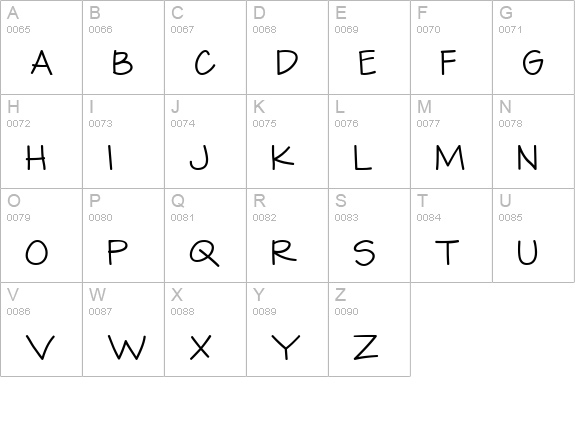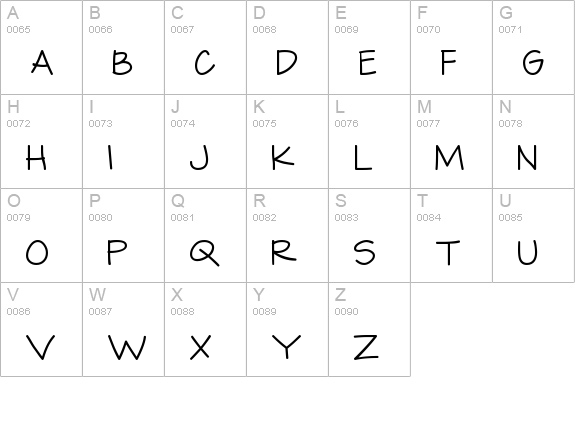
CK Journaling Font Details
Introducing CK Journaling font, a charming and versatile typeface perfect for adding a touch of elegance to your projects. This handwritten font exudes a sense of warmth and personality, making it ideal for journaling, scrapbooking, invitations, and more. CK Journaling features a unique blend of classic and modern elements, resulting in a timeless look that is sure to captivate your audience. What's even better is that CK Journaling font is completely free! This means you can easily download it from FontsMarket.com and start using it in your designs right away. Whether you're a seasoned designer or just starting out, this font is a valuable addition to your collection. Embrace the beauty and charm of CK Journaling font and let your creativity shine through in every project.